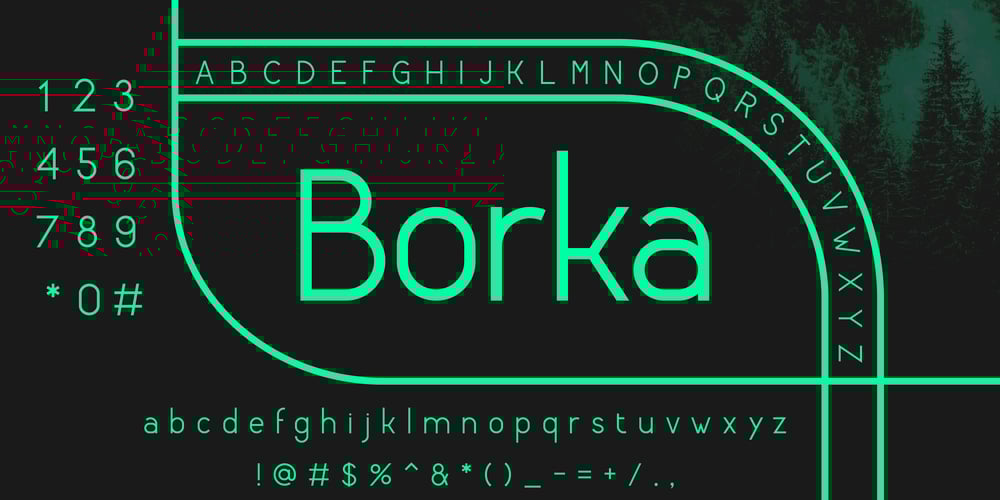
Borka Font Family was designed by Luka Pejic and published by Wirtu. Borka contains 4 styles and family package options. Borka is sans-serif, clean and simple family that can be used for wide variety of purposes. It is well suited for web text, advertisements, designs, flyers, posters, brochures and more.